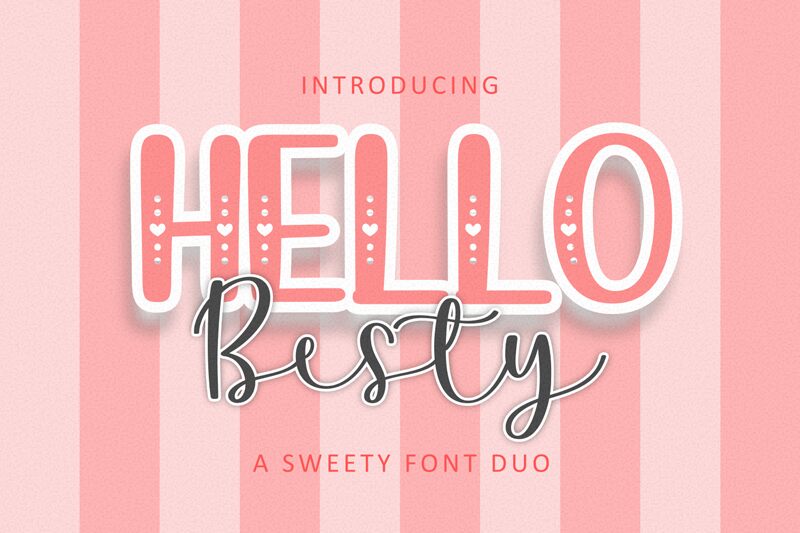
HelloBesty
HelloBesty, a charming creation by designer Makashi, embodies the spirit of affection with its valentine and handwritten style. The semi-light weight of HelloBesty lends it an airy, delicate touch that evokes the tenderness of a personal note. Its elegant curves and flowing ligatures are reminiscent of traditional calligraphy, yet it maintains a contemporary flair that makes it versatile for various design endeavors.
With its aesthetic appeal bridging classic and modern vibes, HelloBesty is well-suited for wedding invitations, greeting cards, and branding projects that require a touch of intimacy. Its readability and distinct personality ensure that any message conveyed in this font resonates with warmth and authenticity. Whether you're crafting an endearing love letter or branding a boutique business, HelloBesty adds a bespoke charm to your creative ventures.